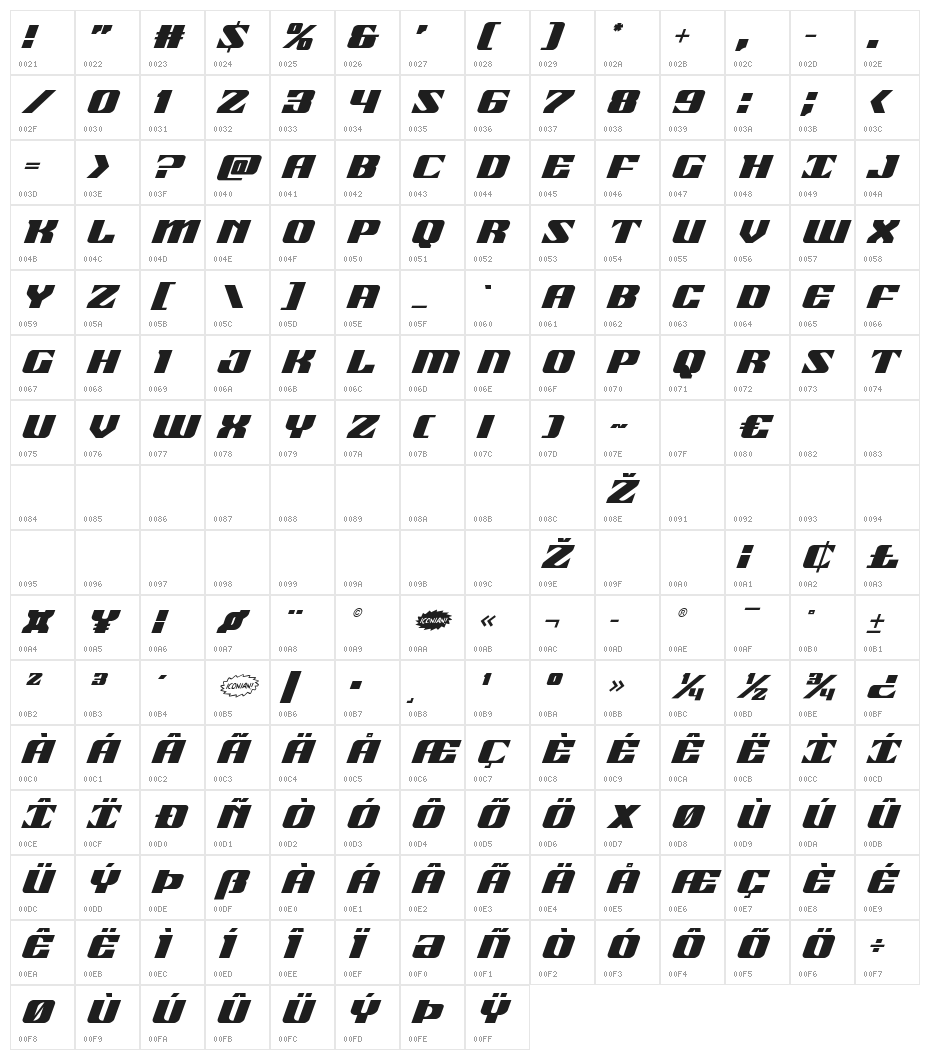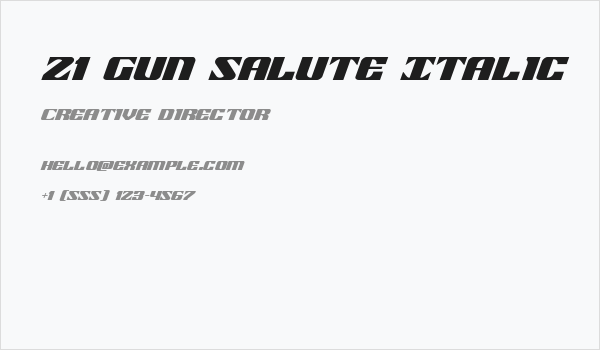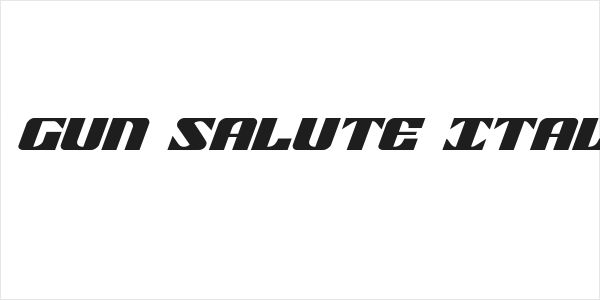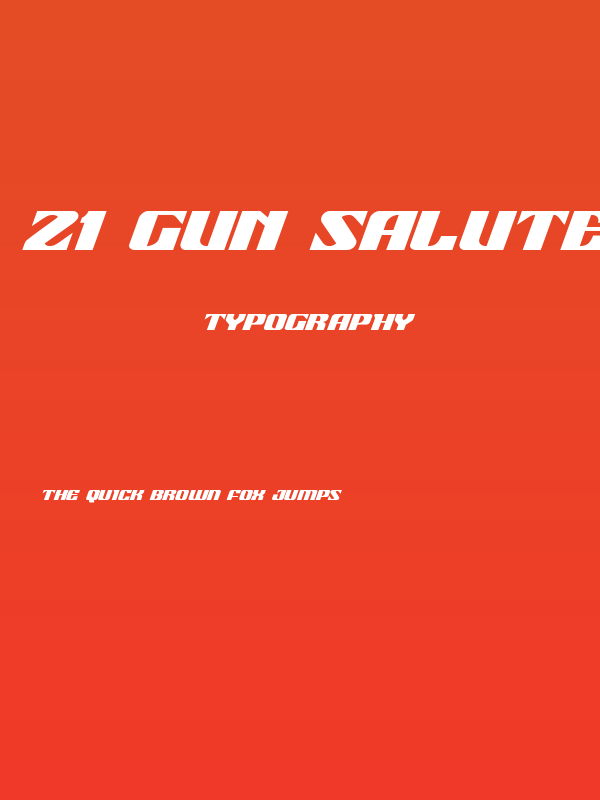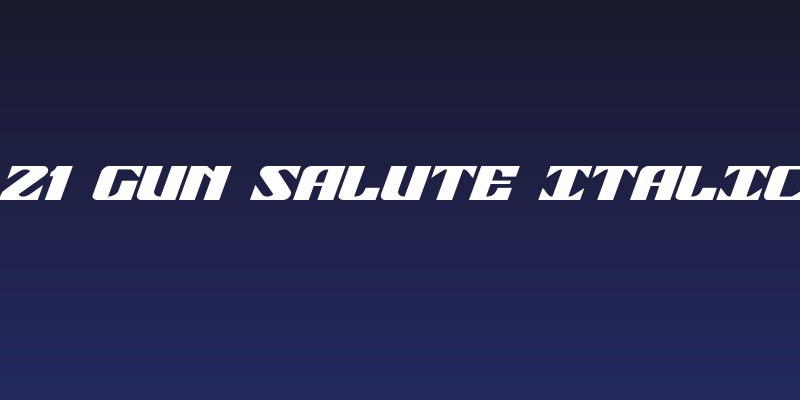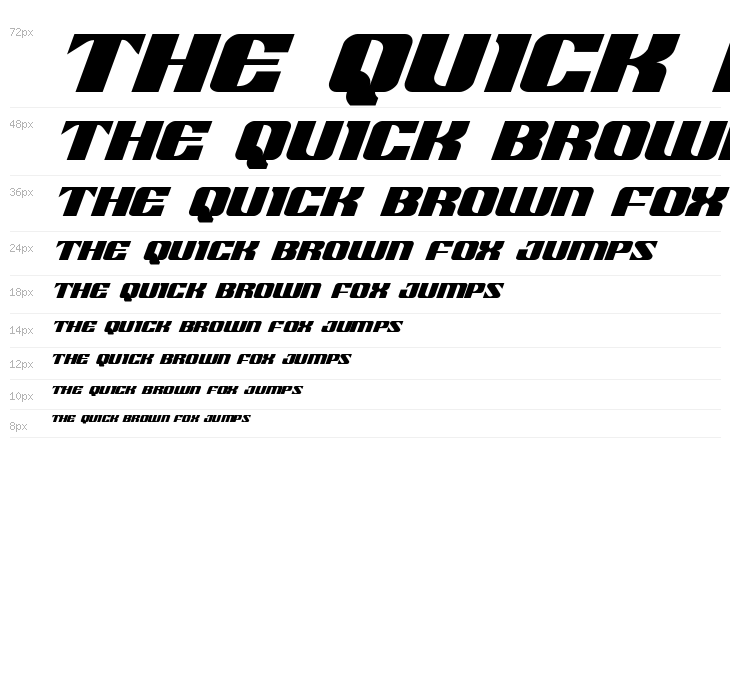
21 Gun Salute Italic Font
21 Gun Salute Italic Description
This font features a bold, italicized style with strong geometric shapes and a dynamic slant, giving it a sense of motion and energy. The characters are wide and have a distinct, angular design that makes them stand out. The uppercase and lowercase letters maintain a consistent style, with sharp edges and a slightly condensed form. The numerals and special characters follow the same bold and angular aesthetic, ensuring uniformity across all glyphs. This font's unique style is both modern and assertive, making it suitable for impactful designs.
| Proposed Projects | Ideal for sports branding, action movie posters, dynamic logos, and bold headlines. |